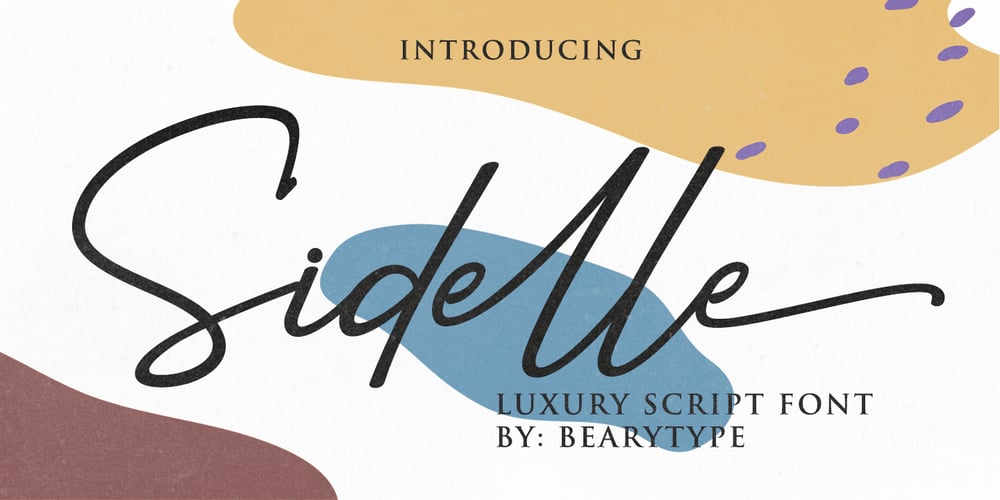
Sidelle Font Family was designed by Dian Haniffan Hadi and published by Beary. Sidelle contains 1 styles and family package options. Sidelle is an amazing hand lettering script that is attractive and natural. Every single letter have been carefully crafted to make your text look beautiful. This font is suitable for invitations, branding, advertising, classic design, poster designs, and more. This font is PUA encoded so you can access extras from character map in most design software.